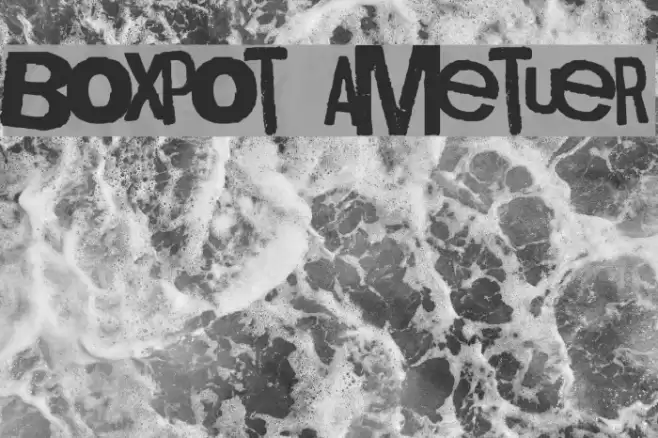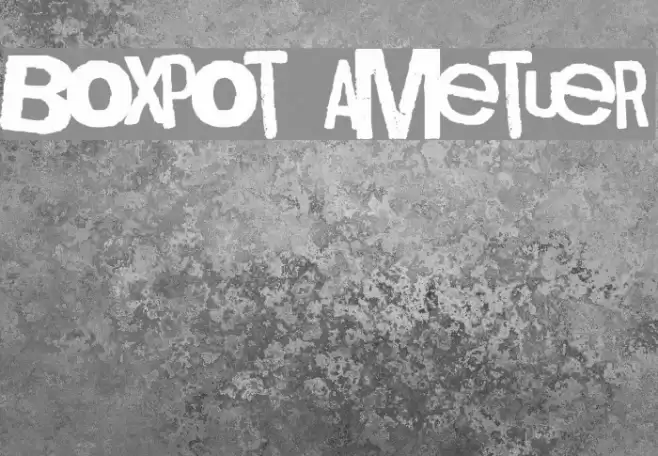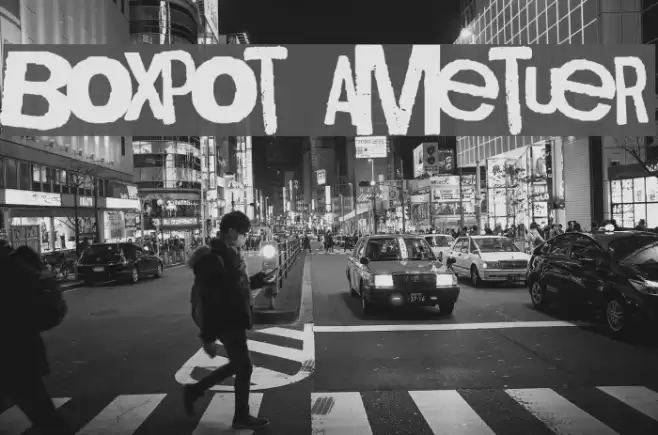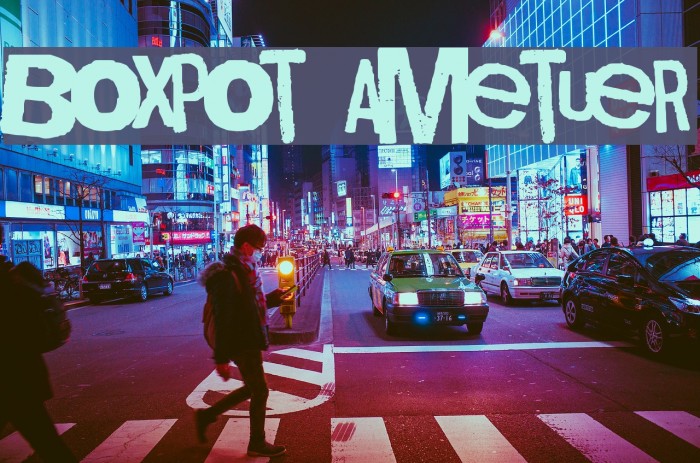
Boxpot Ametuer Font
Boxpot Ametuer Description
This font features a bold and playful design with a hand-drawn aesthetic. The characters are uneven and irregular, giving it a whimsical and artistic feel. The uppercase and lowercase letters are distinct, with exaggerated curves and varying stroke widths. Numbers and special characters maintain the same playful style, making the font suitable for creative and informal projects. The overall appearance is dynamic and energetic, perfect for capturing attention and conveying a sense of fun.
A bold, playful font with a hand-drawn, whimsical style from Distorted Eroded fonts.
- Proposed Projects: Ideal for children's books, posters, greeting cards, and creative branding.
- Overall Style: Playful, Artistic
- Use Case: Headlines, Posters, Creative Branding